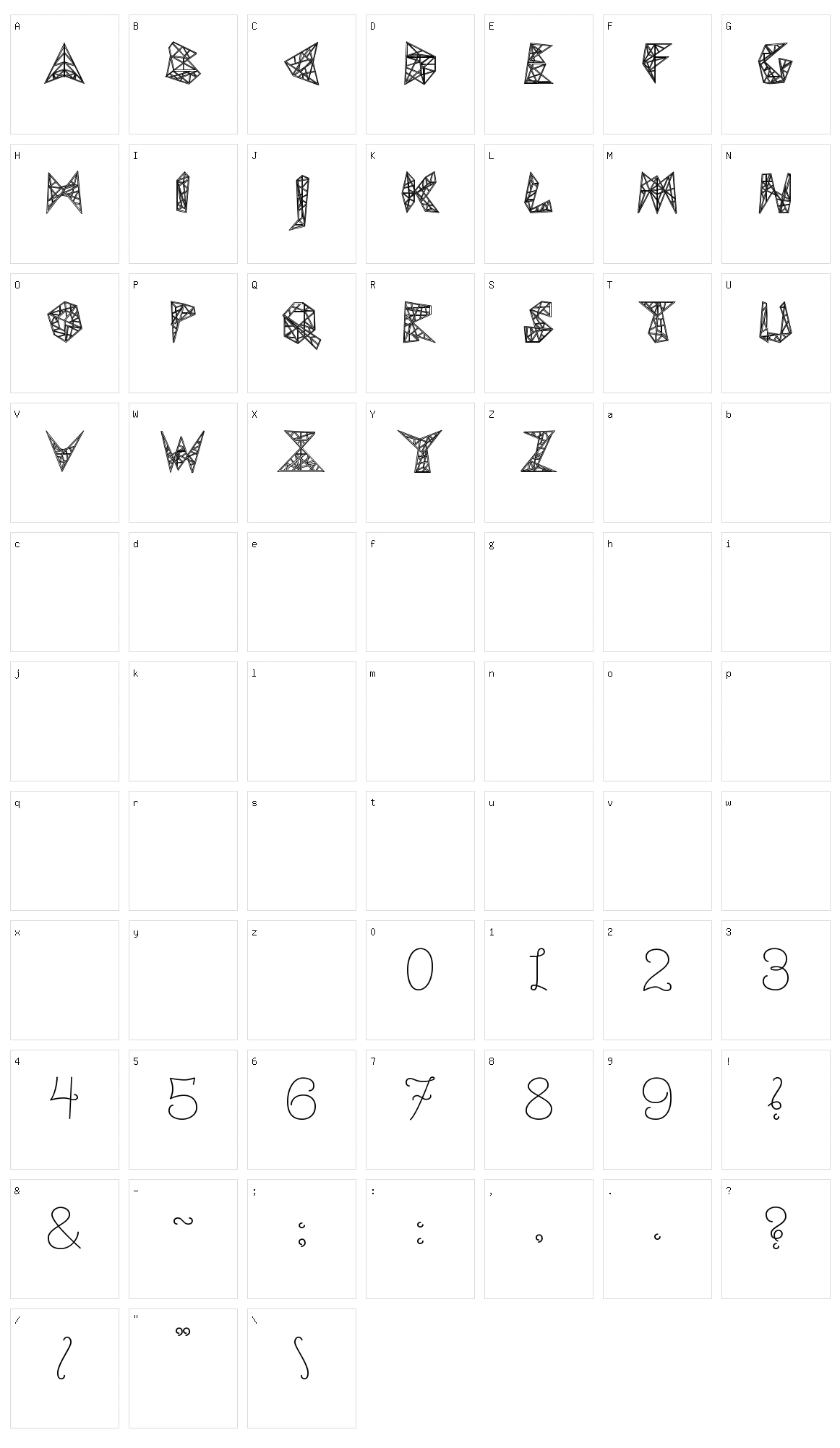
Pylon:
The Pylon typeface is a typeface based on the rhythm and lattice shapes of electricity pylons. For each letter a specific shape from a pylon was chosen and enlarged. This construction makes them interlockable, but also works with large spacing. Hopefully, with this typeface, people will be able to appreciate the shape and rhythm of pylons more, and will give pylon enthusiasts a new way to express themselves and their hobby.
Included is also the 'Pylon Wide' which mimics the pattern and rhythm of electricity pylons across the landscape.